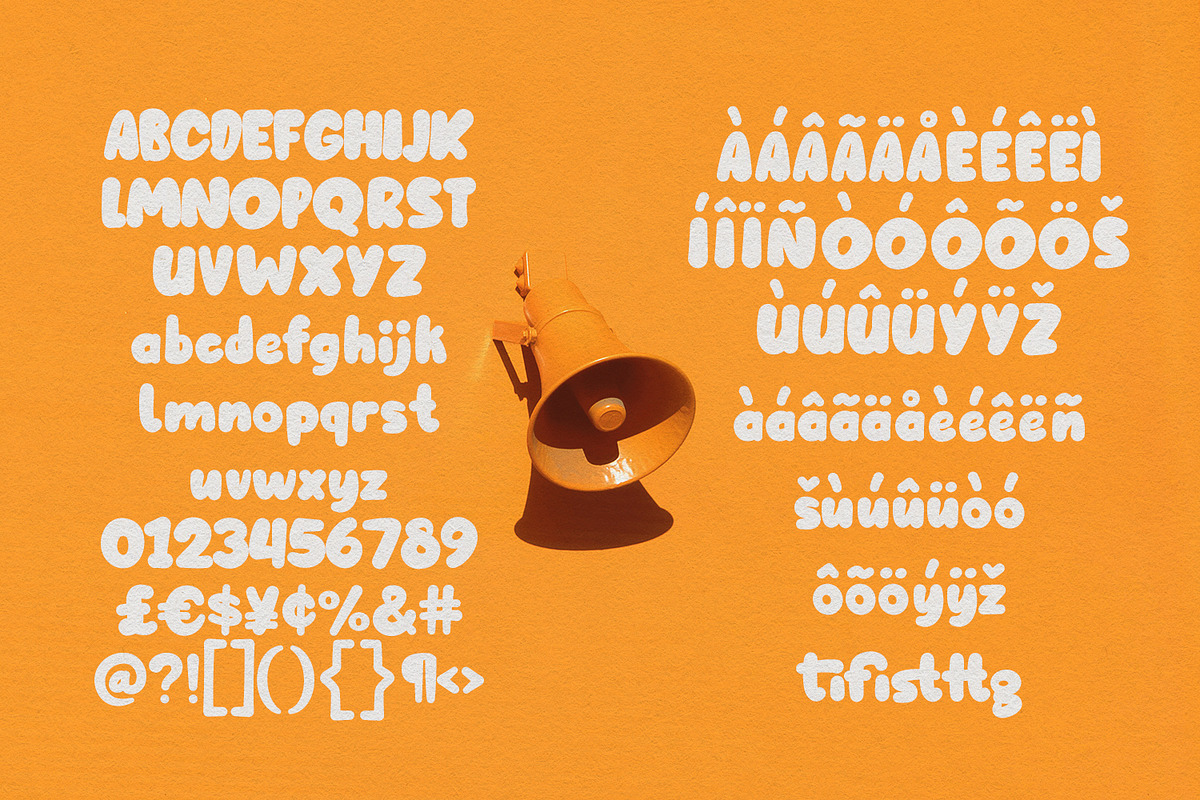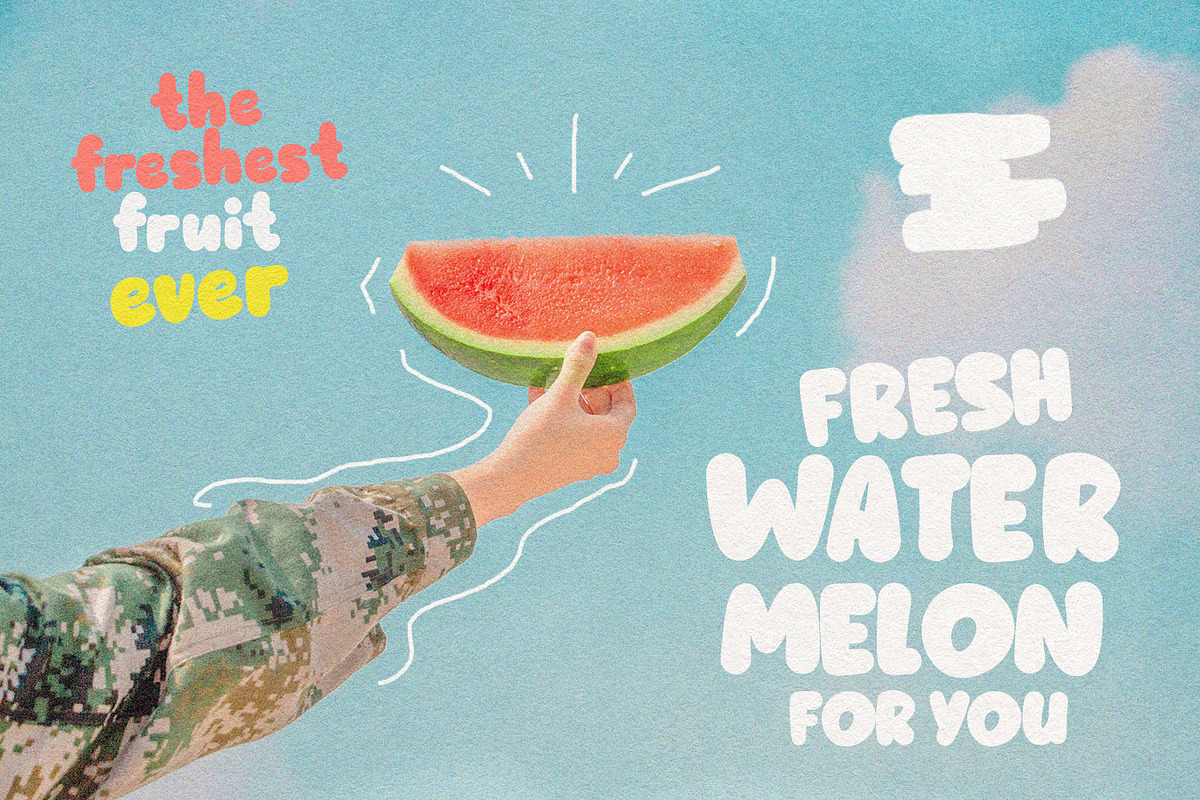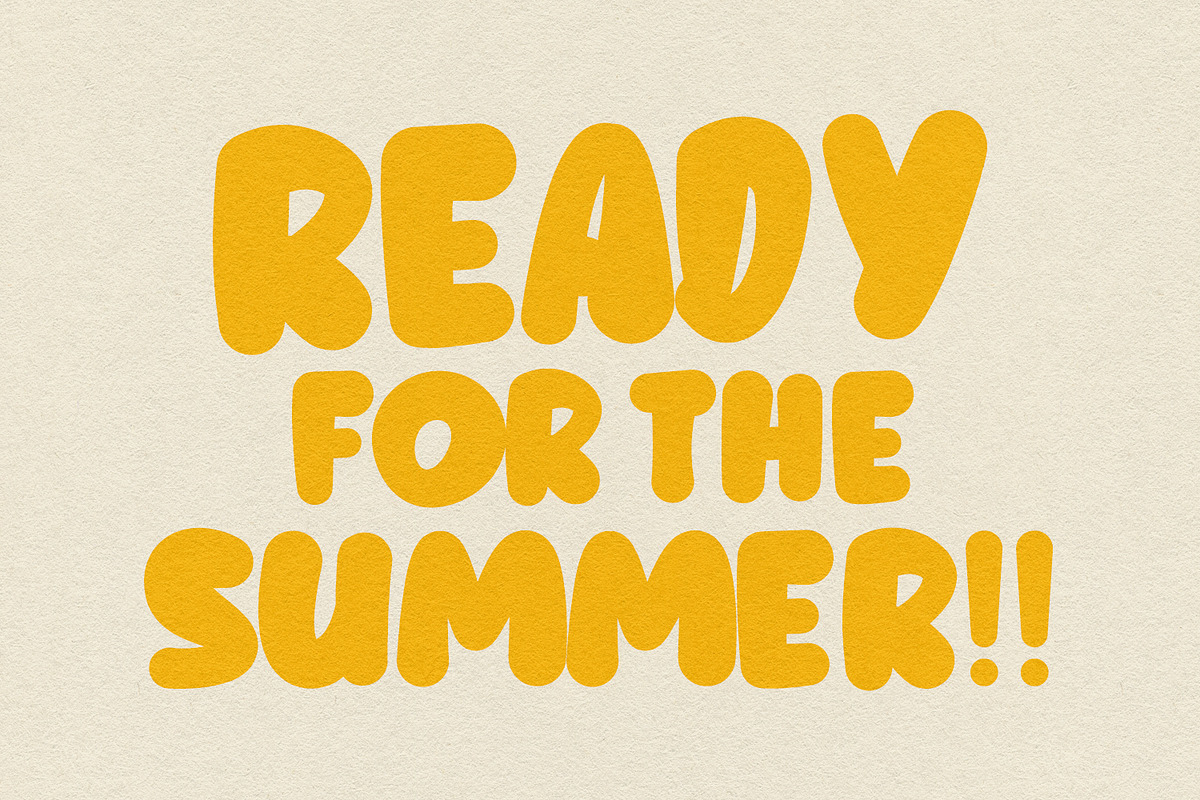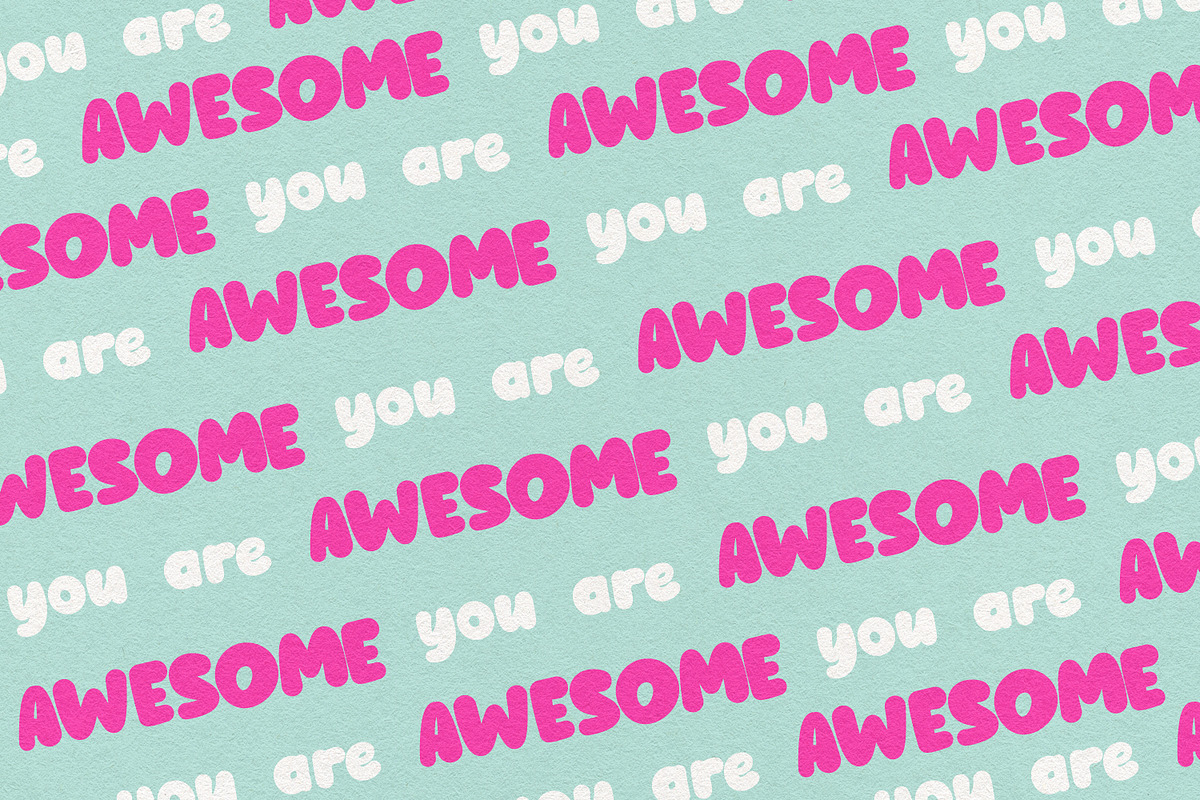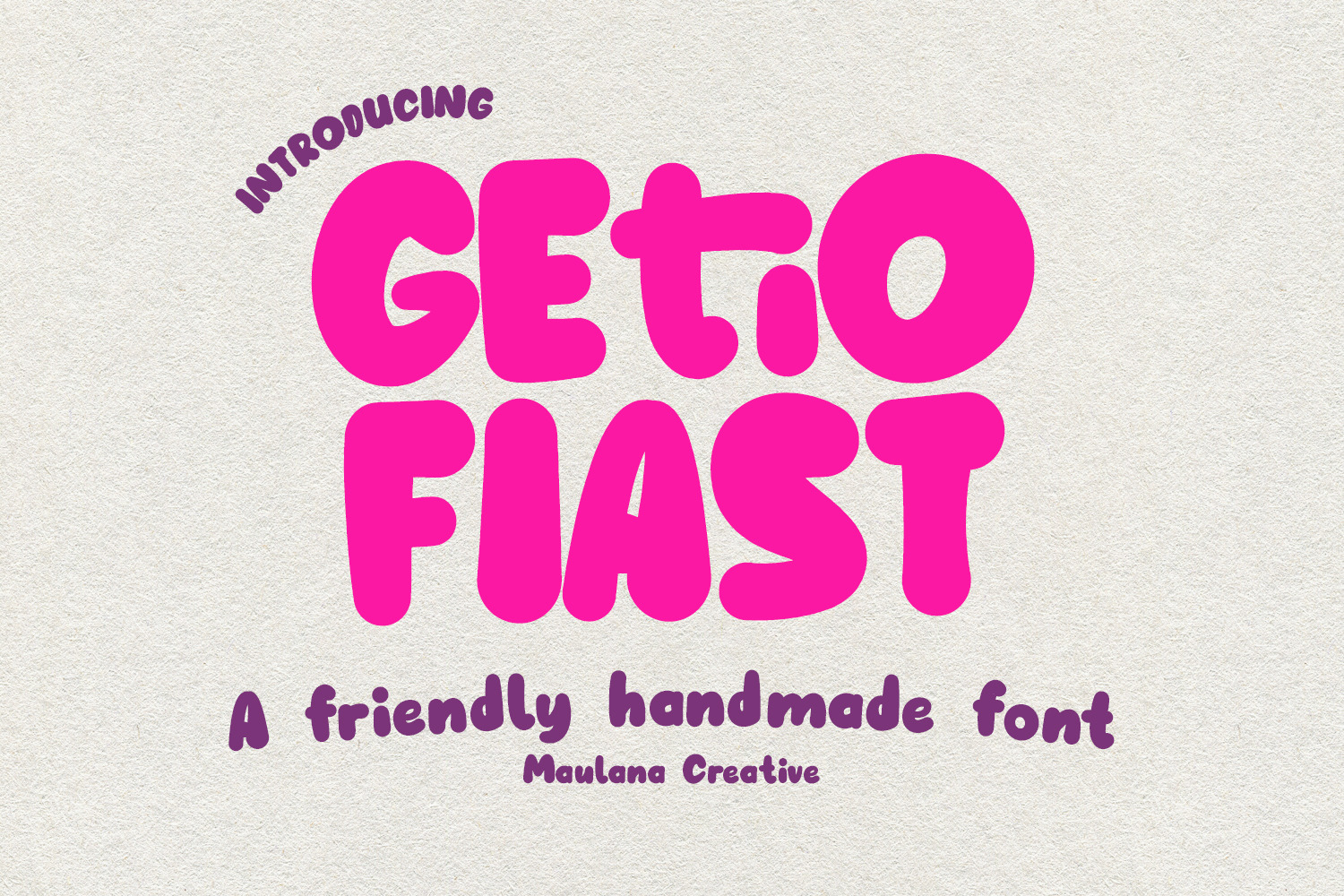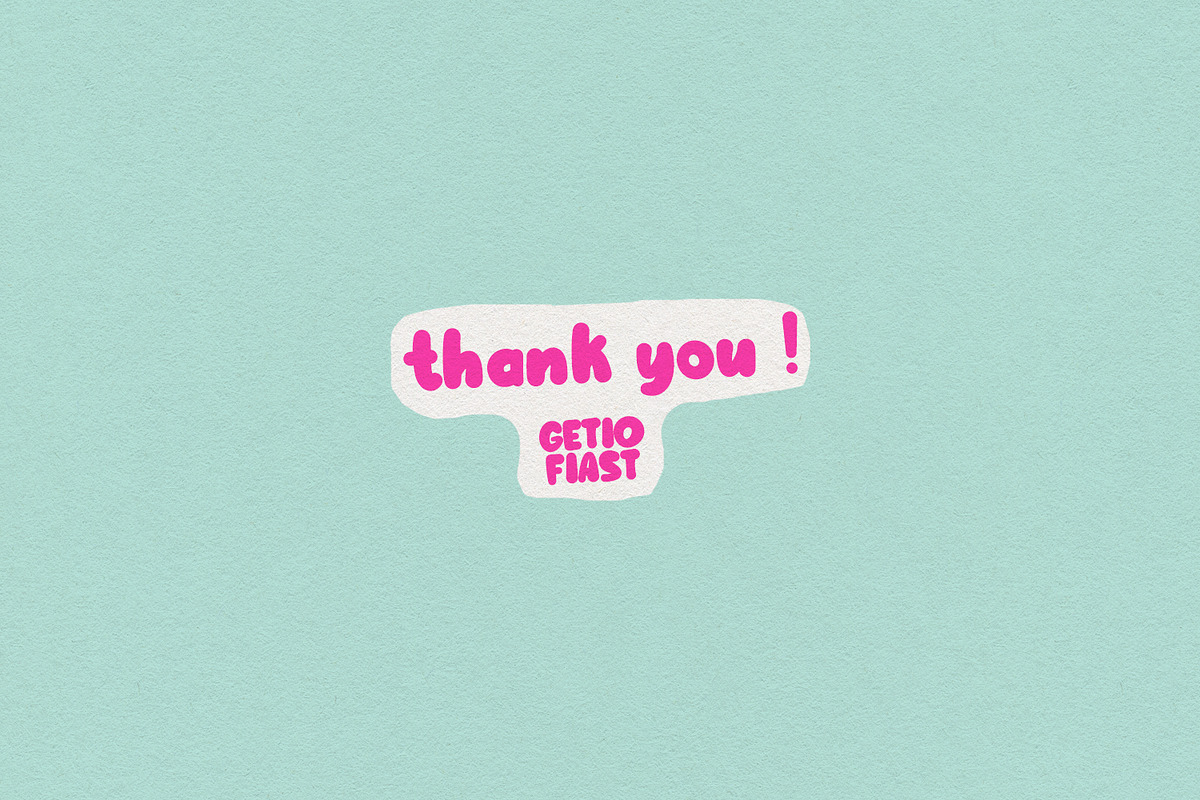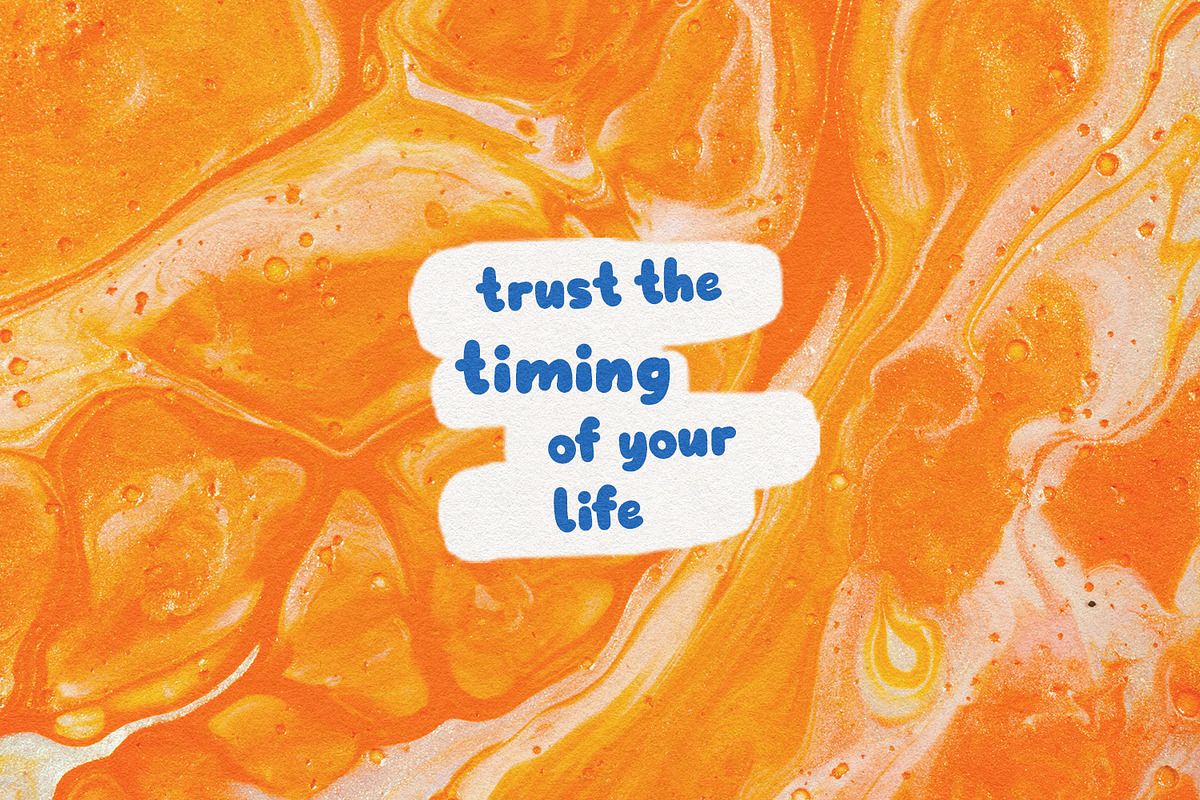
Getio Fiast Friendly Handmade Font
Getio Fiast Friendly Handmade Font.
Getio Fiast is a friendly handwritten handmade font. With bold stroke, fun character with a bit of ligatures and alternates. To give you an extra creative work. Getio Fiast font support multilingual more than 100+ language. This font is good for logo design, Social media, Movie Titles, Books Titles, a short text even a long text letter and good for your secondary text font with sans or serif. Make a stunning work with Getio Fiast font.